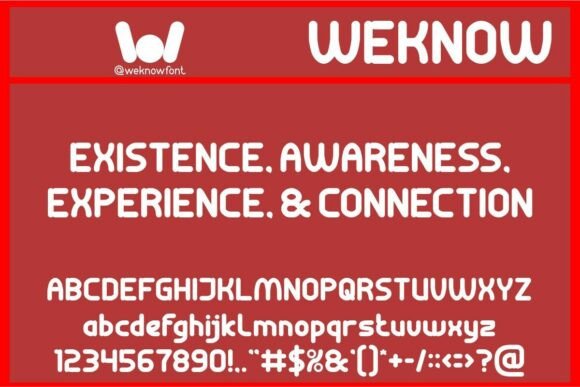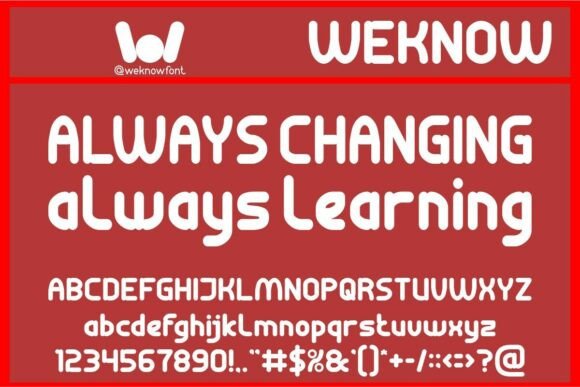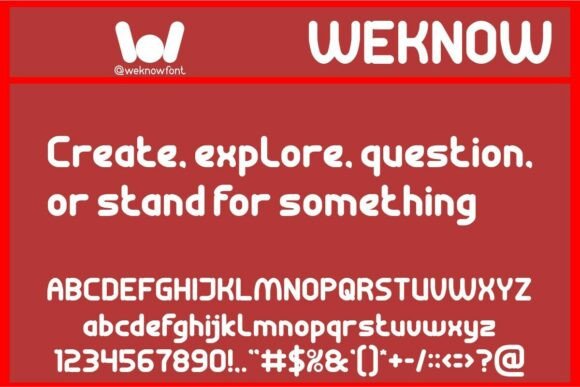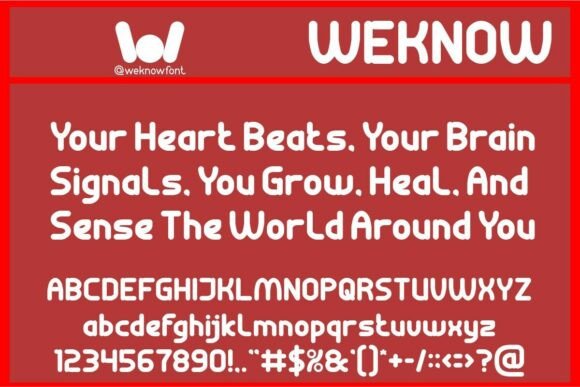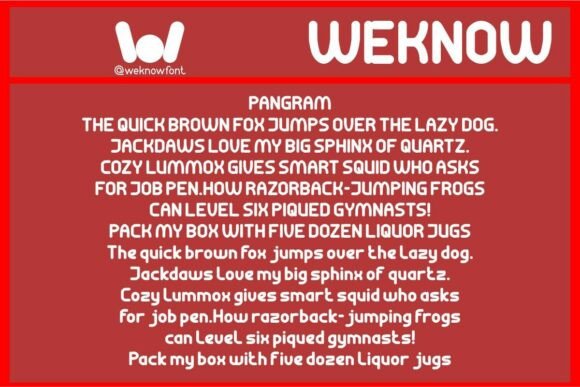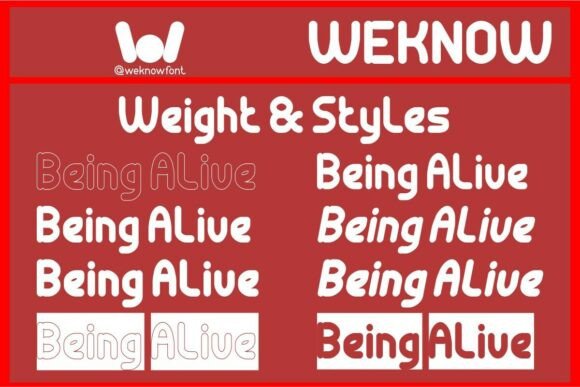
Introduction to Being Alive Font Font
Fonts play a crucial role in design, and the Being Alive Font font is a typeface that brings both character and versatility to any project. Whether you’re working on a branding project, a website, or a print design, the Being Alive Font font offers a unique style that can elevate your work.
Alive to the world of typography, discover Being Alive.
This modern, playful font exhibits smooth, rounded corners and a sans-serif style, breathing life into your latest designs with geometric inspiration Perfectly suited for headlines and corporate identities, it also adds a casual touch to brand identities.
Key Features of Being Alive Font Font
Why Choose Being Alive Font Font?
The Being Alive Font font is more than just a typeface – it’s a design tool that helps you communicate your message with style and clarity. Its unique character set and versatile design make it suitable for a wide range of applications, from elegant invitations to bold headlines.
With its carefully crafted letterforms and balanced proportions, the Being Alive Font font ensures readability and visual appeal across all mediums.
What makes Being Alive Font font special?
The Being Alive Font font stands out with its unique design, exceptional readability, and versatility across various design applications.